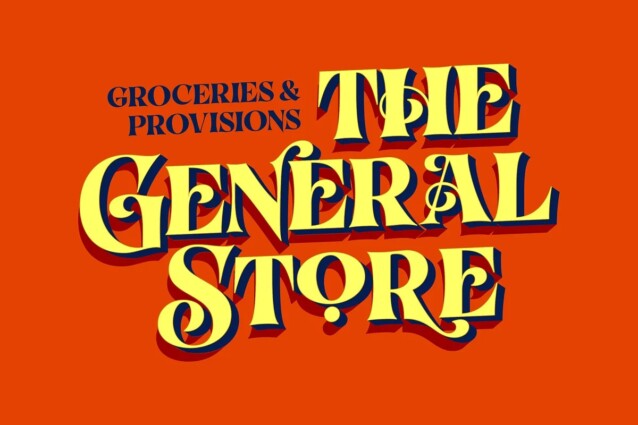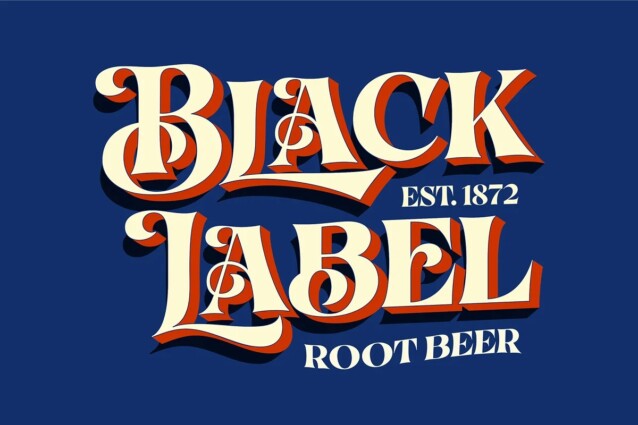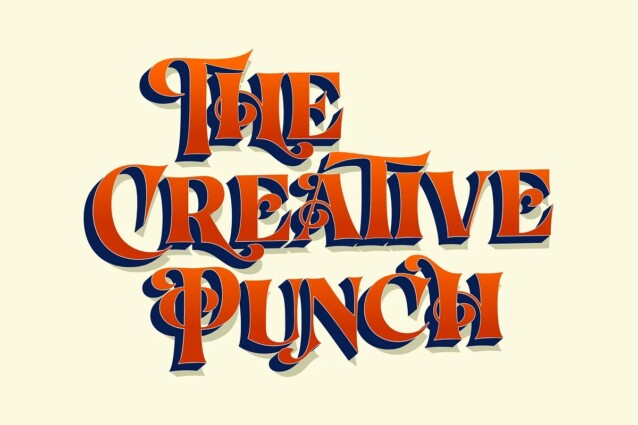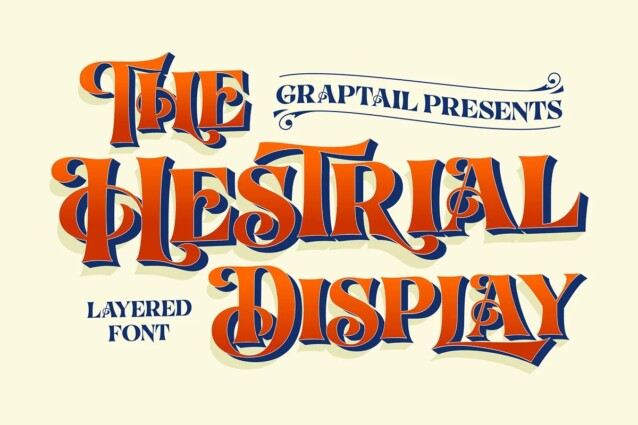
Hestrial Font
Hestrial Font is sharp serif typeface with an elegant feel. Unique character by combining geometric shapes with organic curvy details. Hestrial comes with uppercase, lowercase, numerals, punctuations and so many variations on each characters include opentype alternates, common ligatures and also additional swash to let you customise your designs. Perfect to use for Logotype, Letterhead, Poster, Apparel Design, Label and etc.